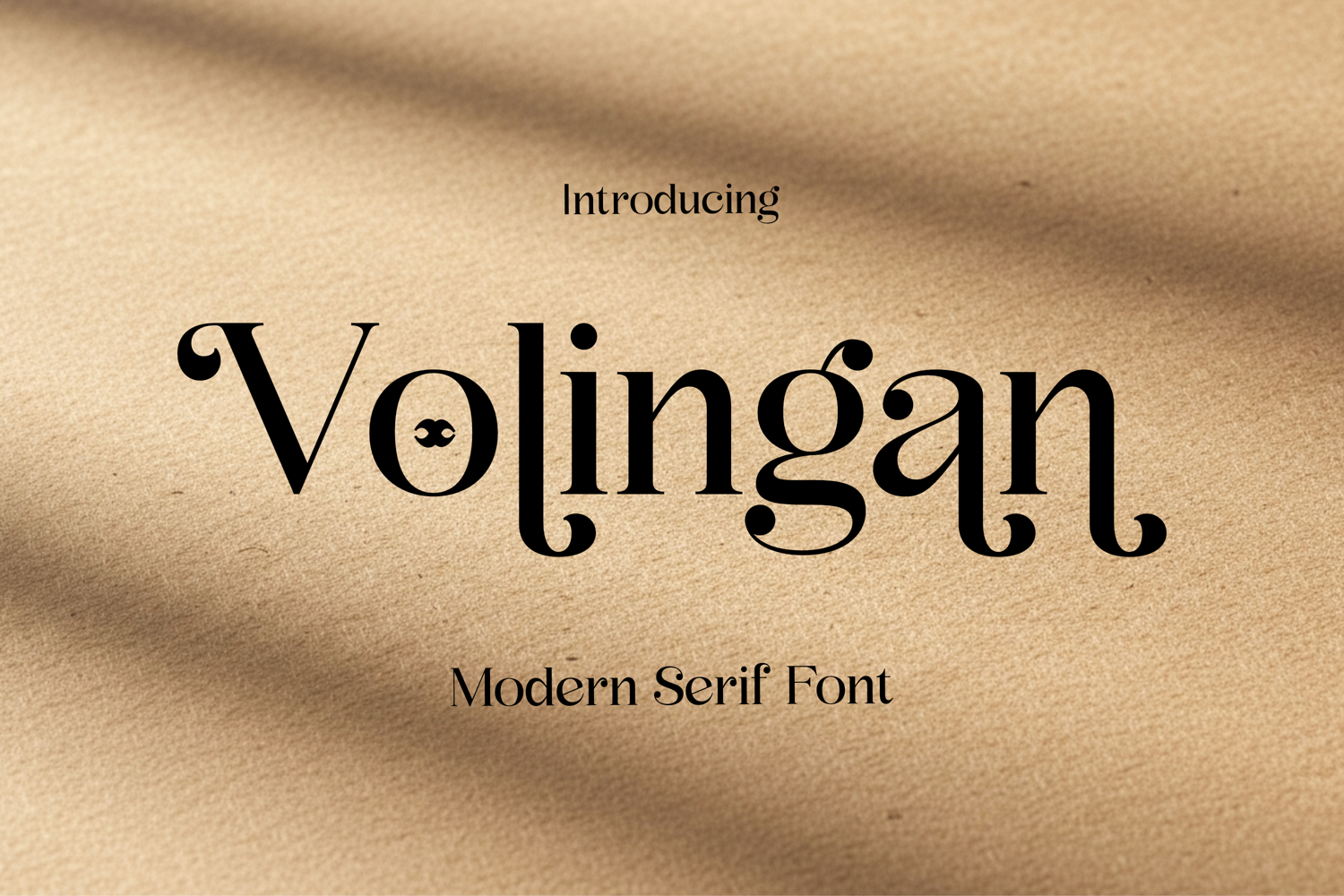
Volingan - Modern Serif Font
Volingan is a striking display font designed to command attention with its sharp curves and refined elegance. Perfect for branding, packaging, logos, headlines, and modern editorial layouts, this typeface blends sophistication with a contemporary edge.
Its clean lines and stylish character shapes make every design look premium, confident, and unforgettable.
FONT FEATURES
• Additional Accents
• 68 Languages
• Kerning
• Alternates